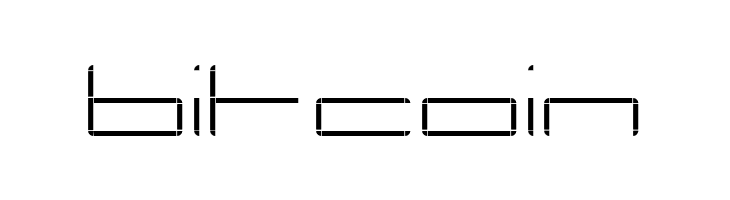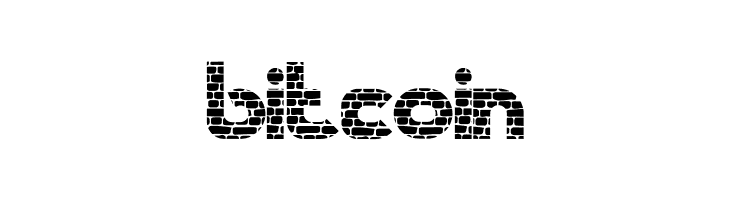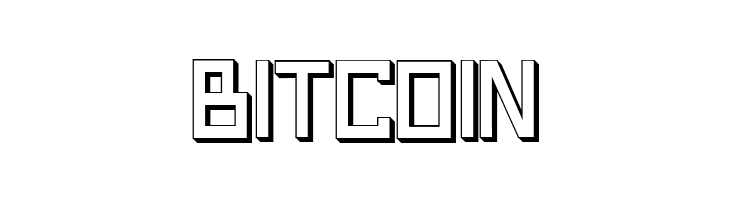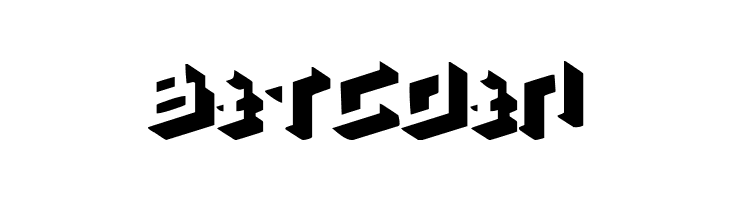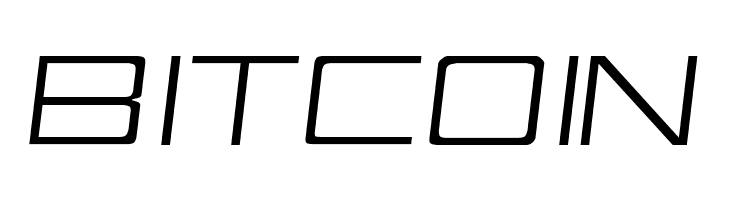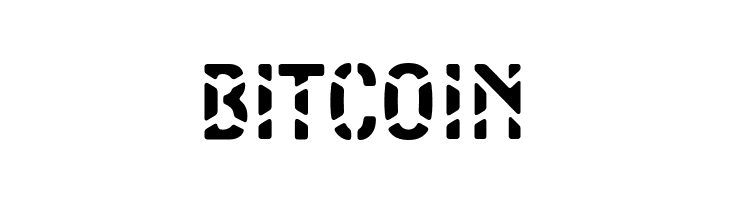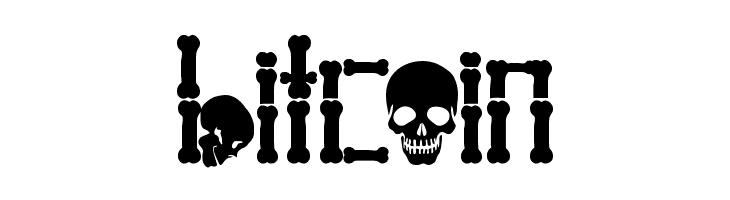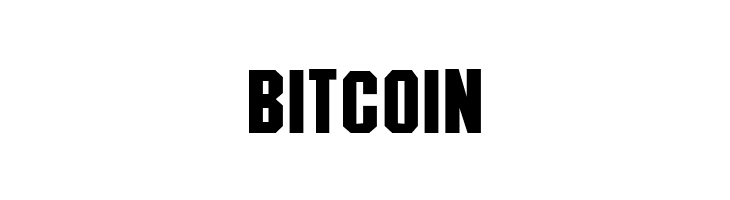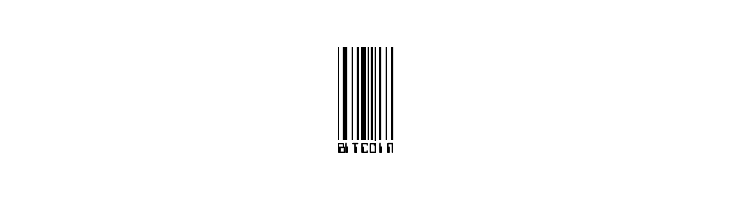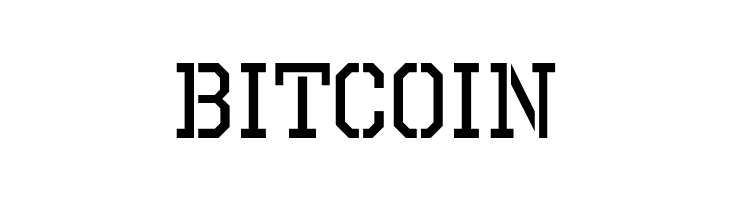
A bold, brick-patterned decorative font with an industrial feel.
A bold, stencil-style font with industrial and rugged characteristics.
A spooky, skeleton-themed decorative font with bold, bone-constructed characters.
Barcode-style font with vertical line constructions.
A bold, industrial stencil-style font with strong, blocky characters.
An abstract, deconstructed font with thin, sharp strokes and a futuristic style.
A dot-matrix, geometric display font with modular construction.
A pixelated, retro font inspired by early digital graphics.
A pixelated, retro-style font with a blocky, grid-like appearance.
A futuristic, geometric font with rounded edges and consistent stroke width.
A bold, geometric font with a futuristic and assertive style.
A bold, geometric font with a futuristic and robotic design.
A bold, futuristic font with geometric and modern design elements.
A bold, geometric font with high contrast and unique character shapes.
A pixelated, digital-style font with a structured, grid-like appearance.
A bold, geometric font with a futuristic and edgy design.
A bold, geometric stencil font with a modern, industrial style.
A futuristic, geometric font with linear and angular design elements.
A futuristic, geometric font with a bold shadow effect for a 3D appearance.
A bold, three-dimensional geometric font with a strong shadow effect.
A geometric, pixelated font with a modern, digital aesthetic.
A bold, modern font with geometric and futuristic elements.